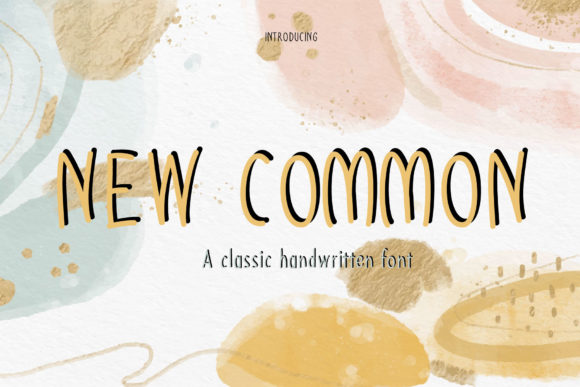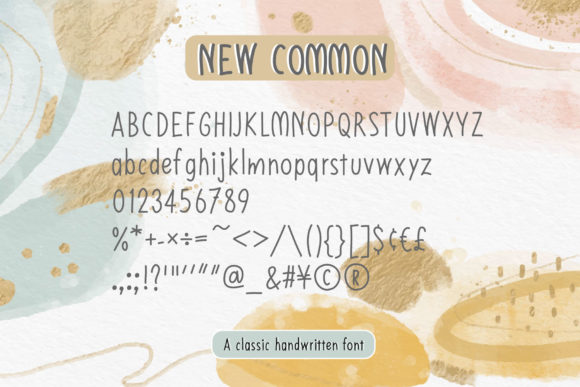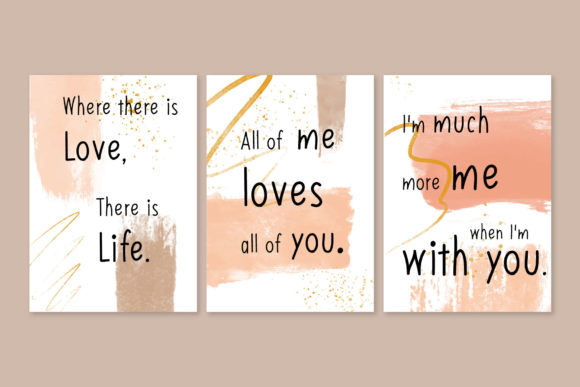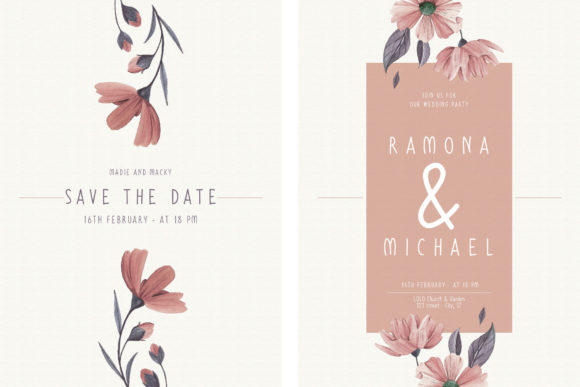
About New Common Font
New Common is a cute and unique handwritten font. It adds joy to each of your designs. This font is perfect for children themed designs, especially when combined with bright colors.